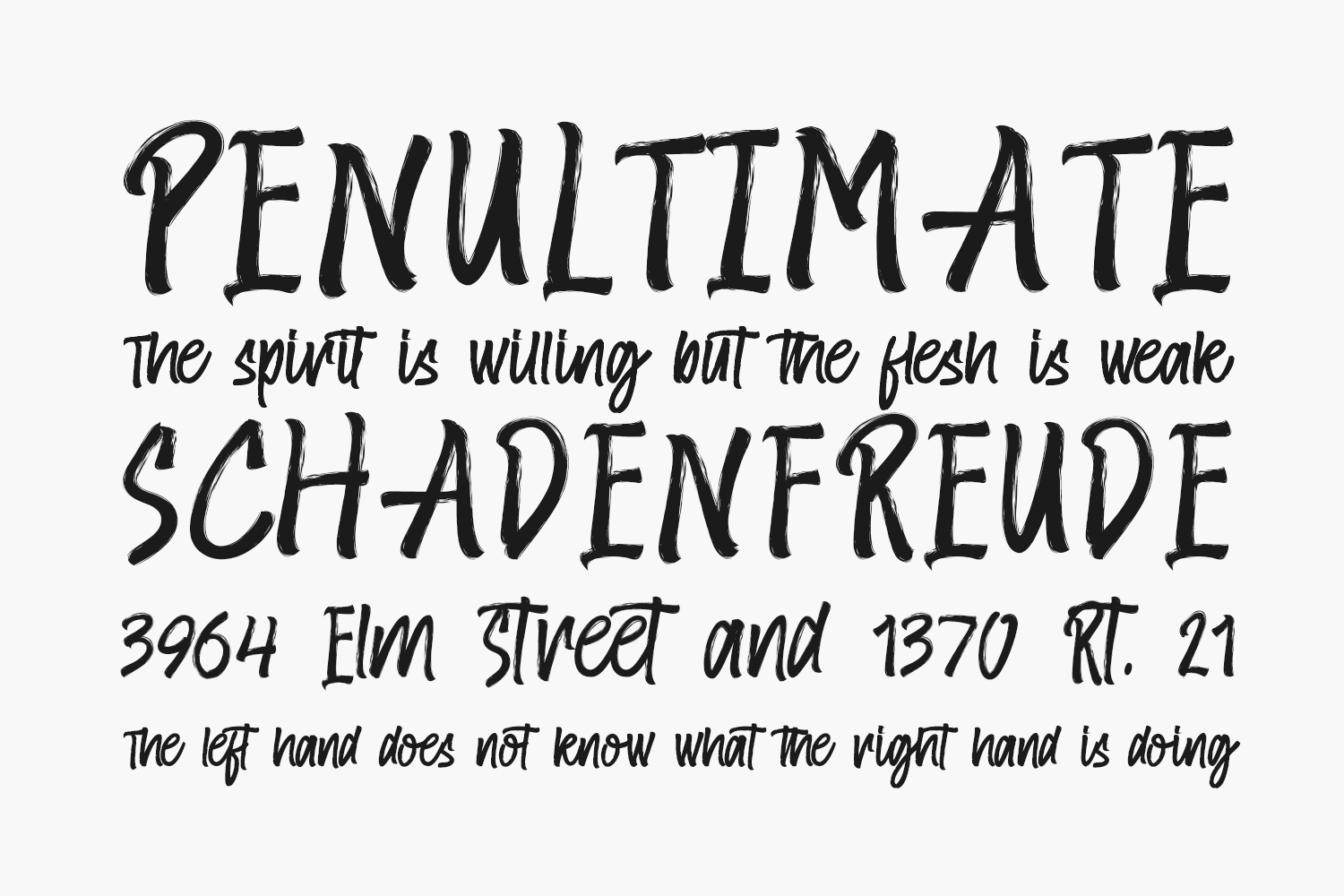
Amster Brush Free Font Family is ideal for advertising and packaging, in text and display settings. Amster Brush was created carefully to ensure that the connection is smooth between all possible combinations of characters. Amster Brush Free Font Family was designed by Graphix Line Studio and is free for personal use only. Please purchase the full version for commercial use.